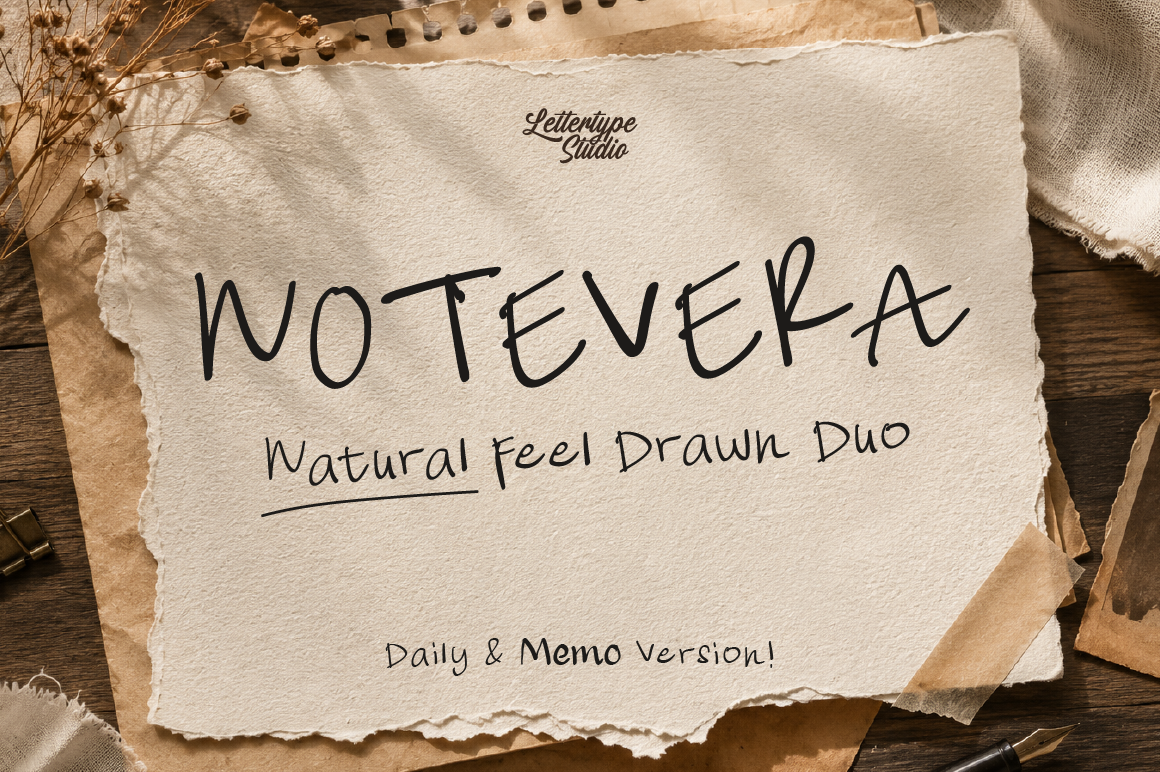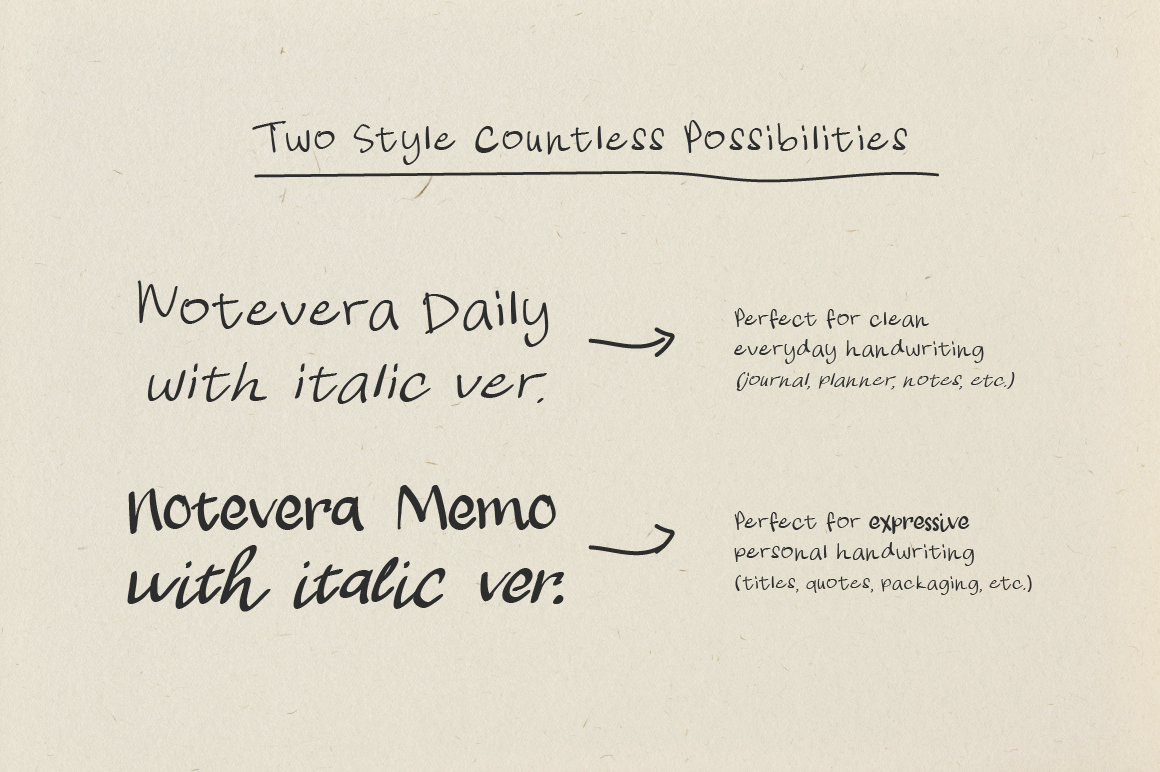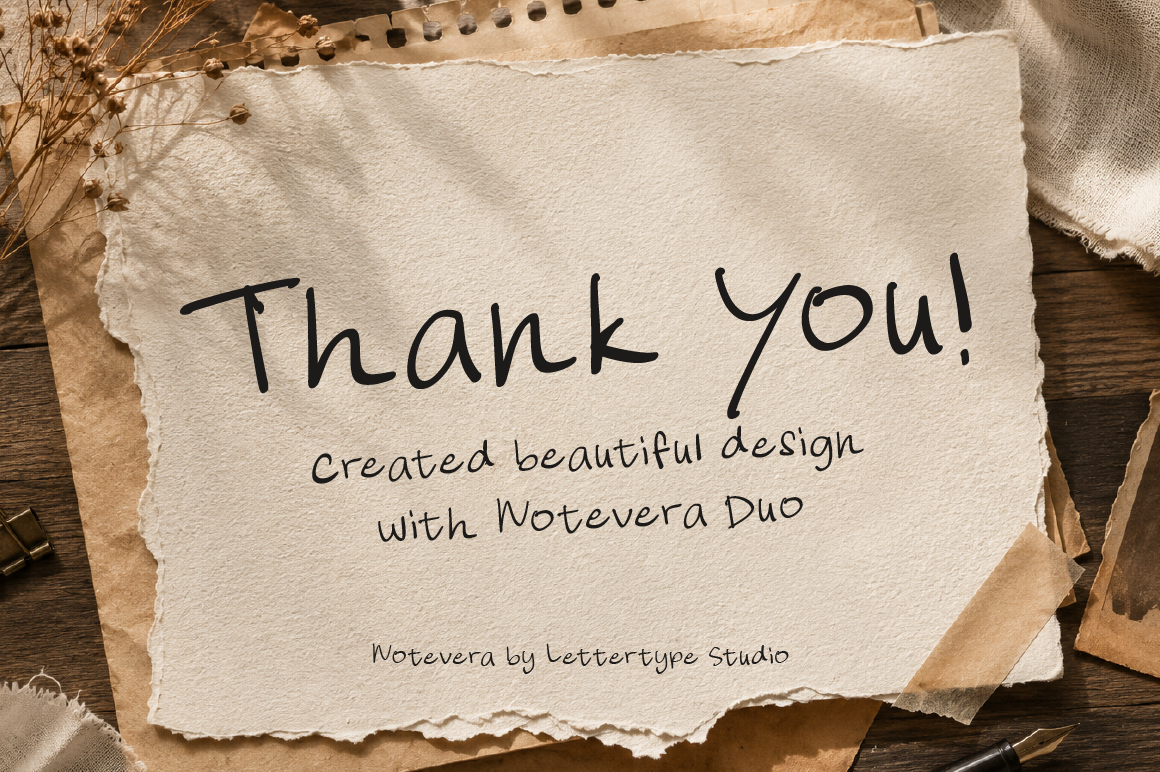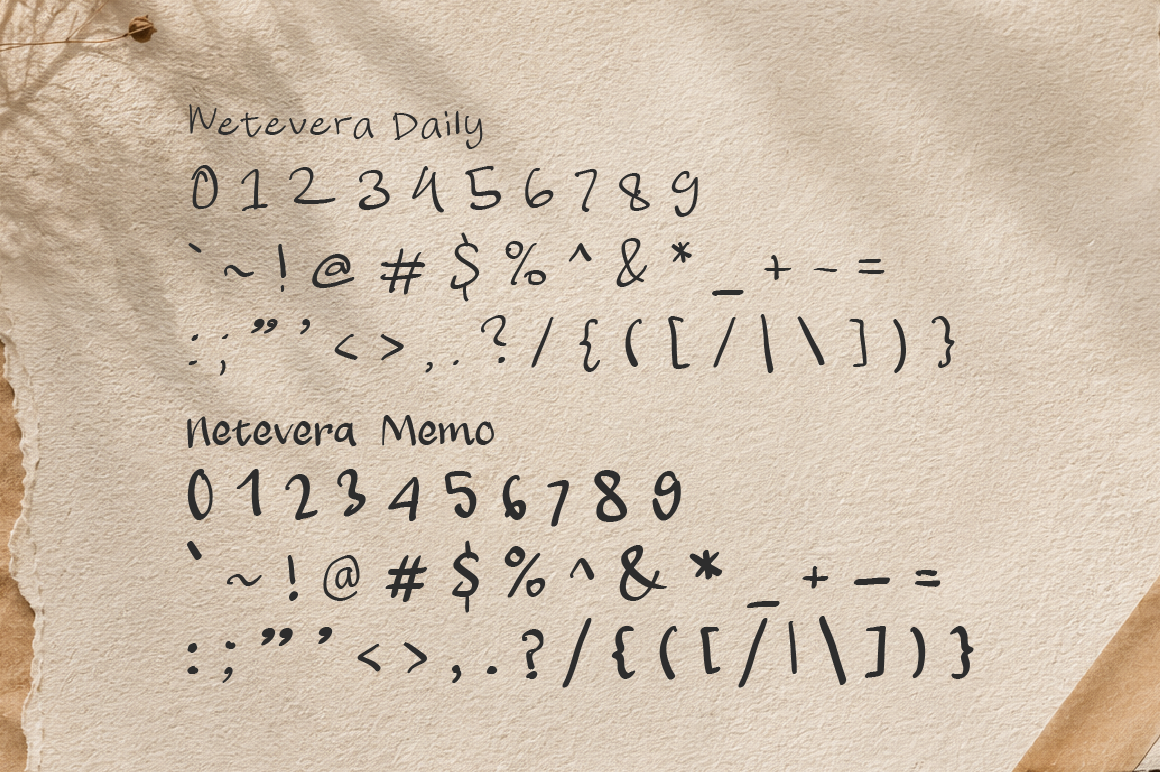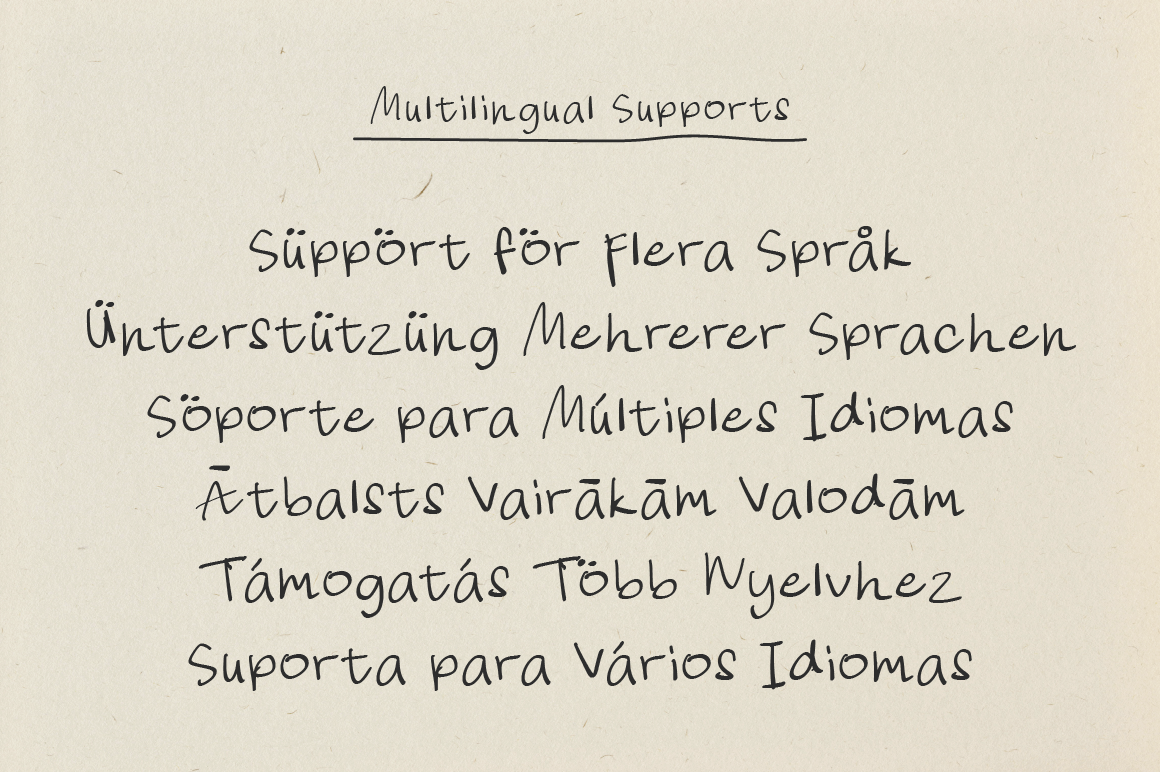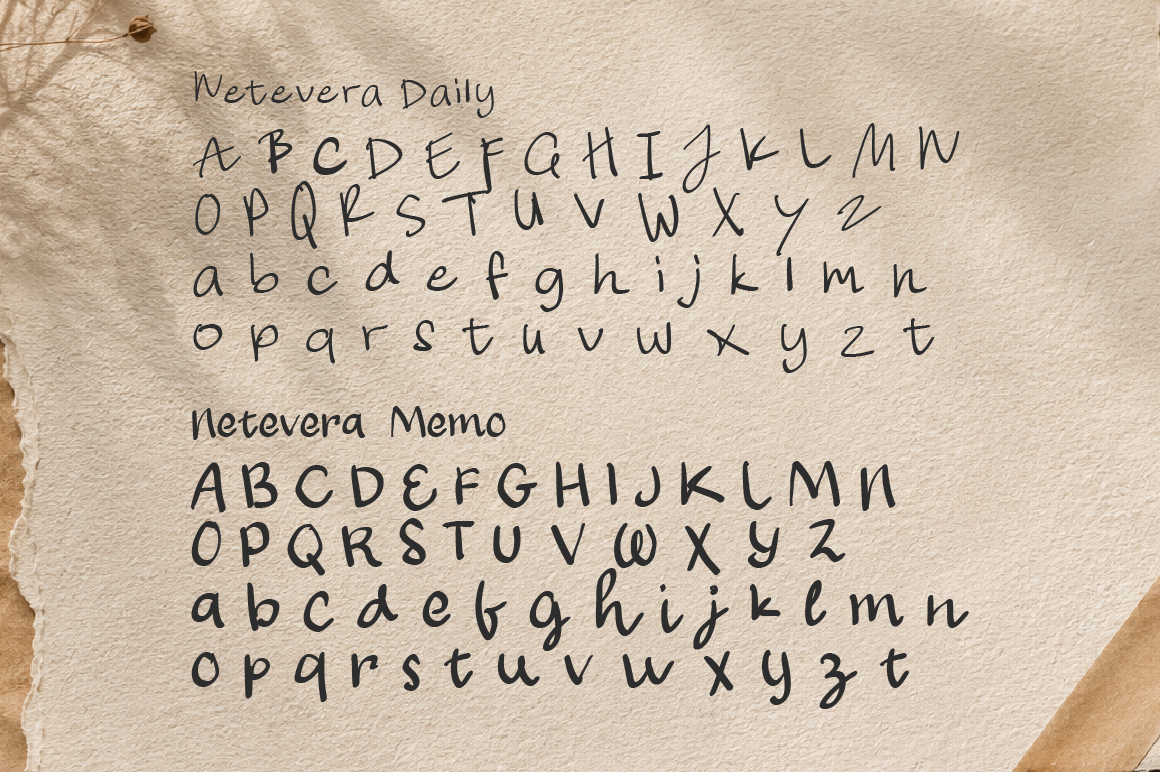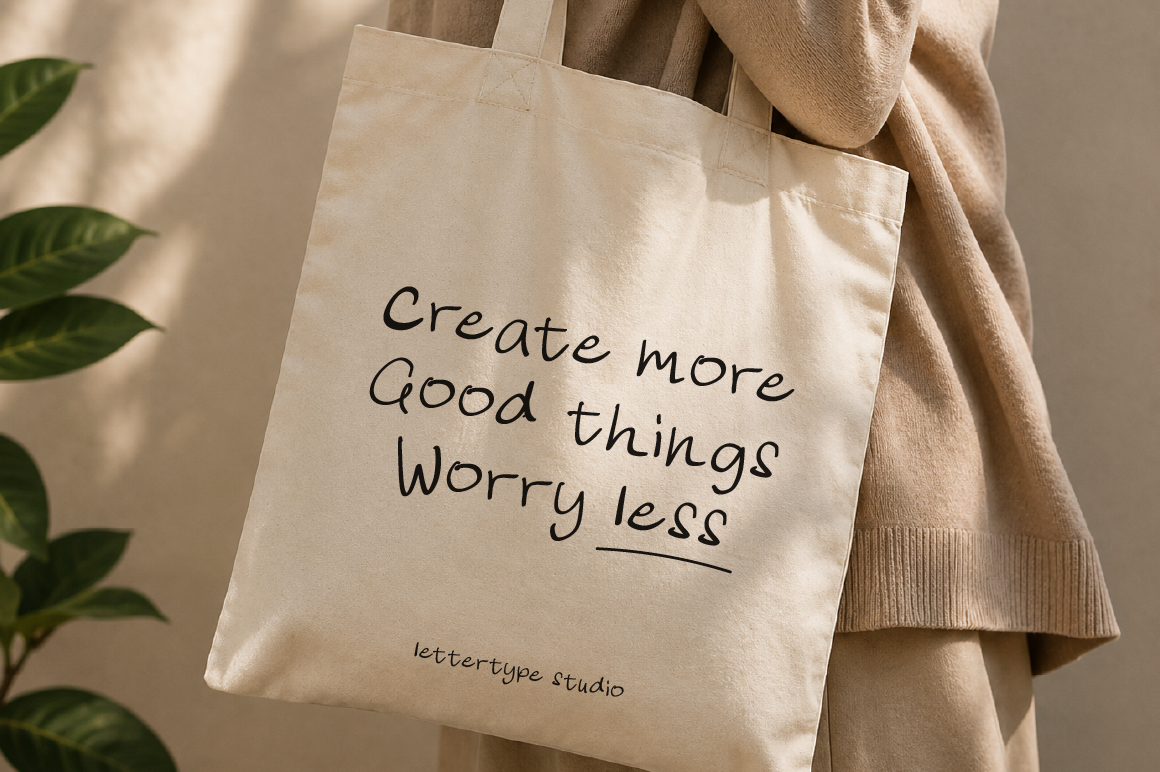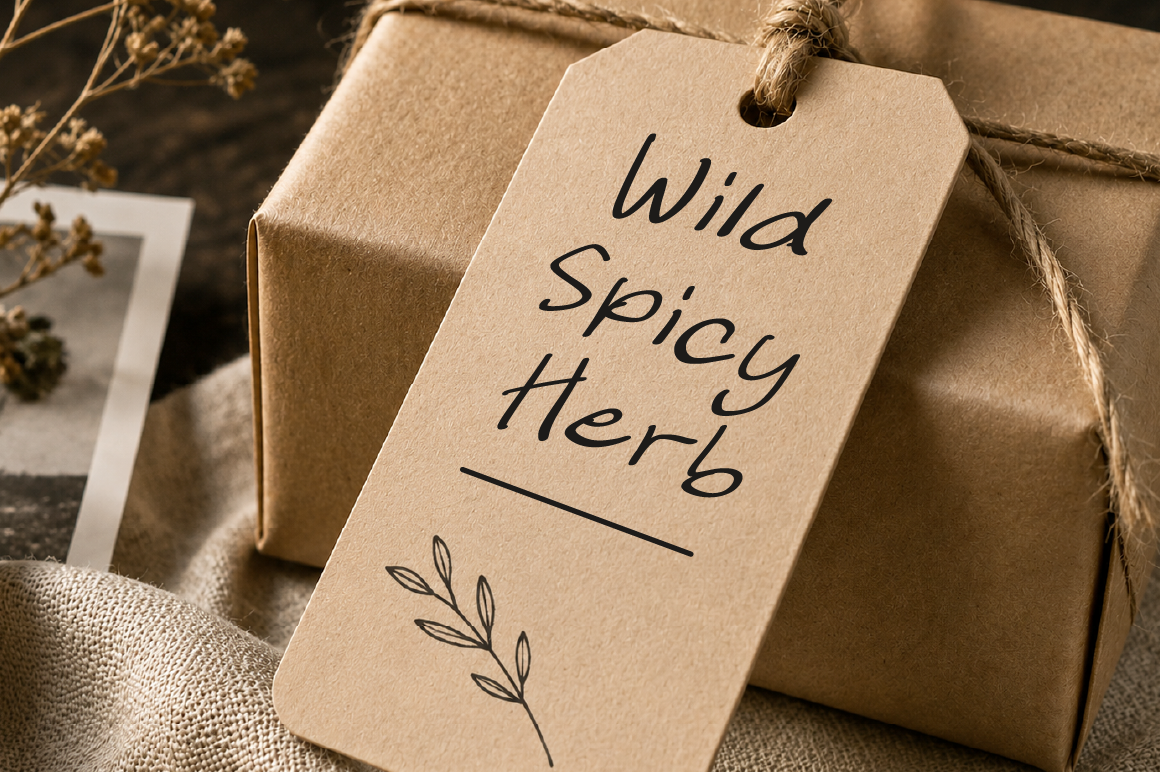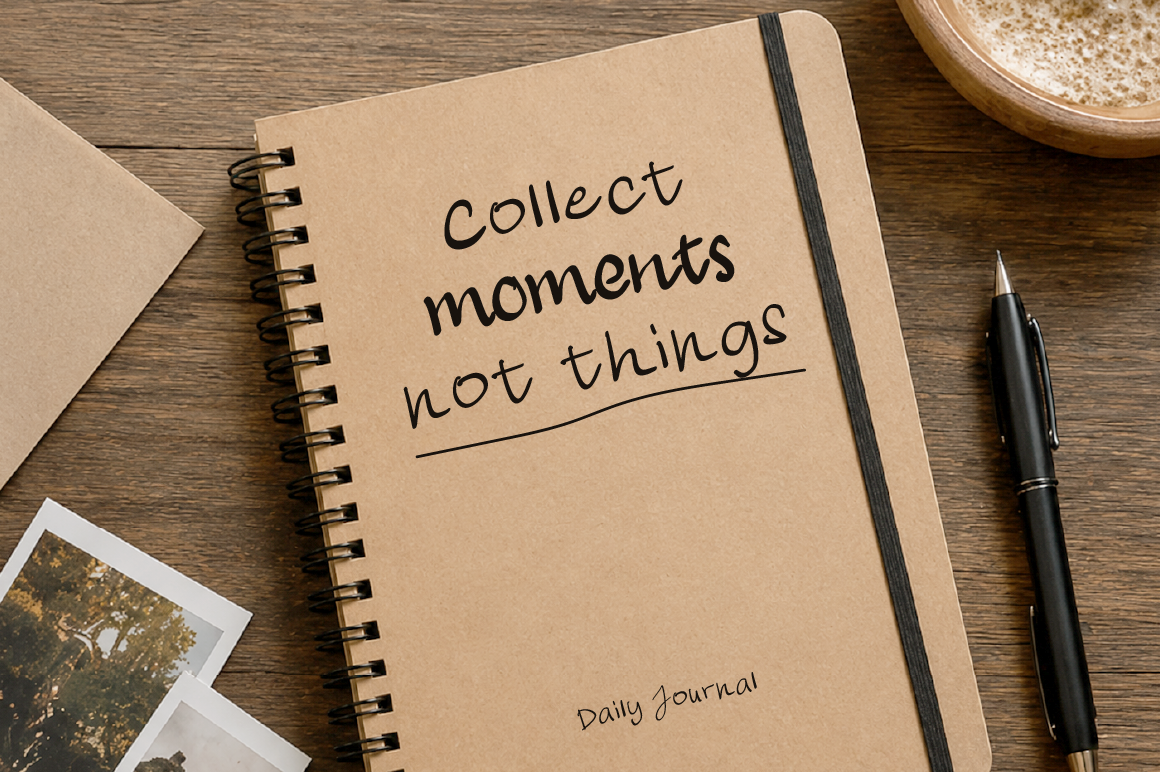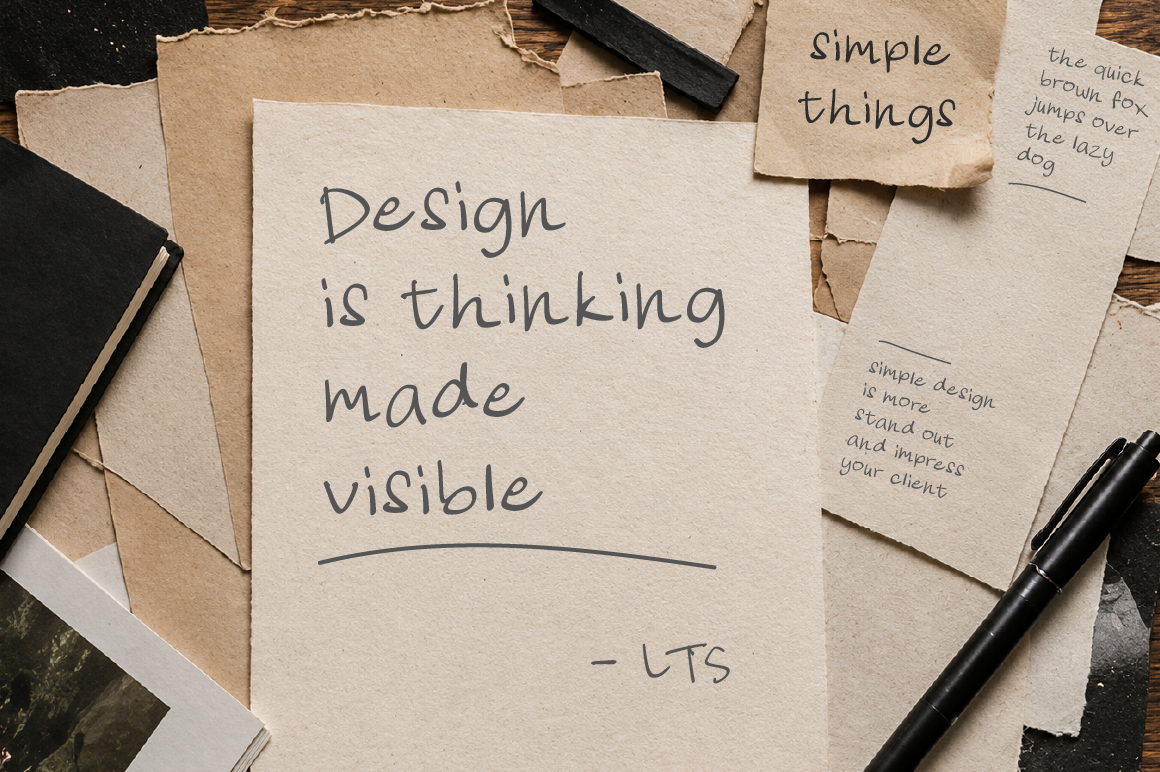
Notevera Duo was created for designers who want a handwritten font that feels warm, modern, and naturally expressive. Instead of overly decorative calligraphy, this duo focuses on real handwritten energy with a clean structure that remains highly readable across digital and print projects.
The combination of Notevera Daily and Notevera Memo gives creators flexibility for visual hierarchy and emotional contrast. Daily works beautifully for clean captions, journaling, and soft branding, while Memo adds stronger personality and handwritten spontaneity for titles, packaging, quote cards, and editorial compositions.
Inspired by cozy paper textures, aesthetic journaling culture, café notes, creative studio sketches, and modern stationery visuals, Notevera Duo fits perfectly into today’s design trends across Canva templates, lifestyle branding, social media posts, planners, notebooks, product labels, and creative presentation systems.
Notevera Duo Features:
- 4 Fonts & 2 Styles
- Upright & Italic
- 386 Glyphs Total (each font)
- 260+ Languages Support
Perfect For:
- Journaling & Digital Planners
- Café & Lifestyle Branding
- Packaging & Product Labels
- Social Media & Canva Templates
- Editorial Quotes & Creative Presentations